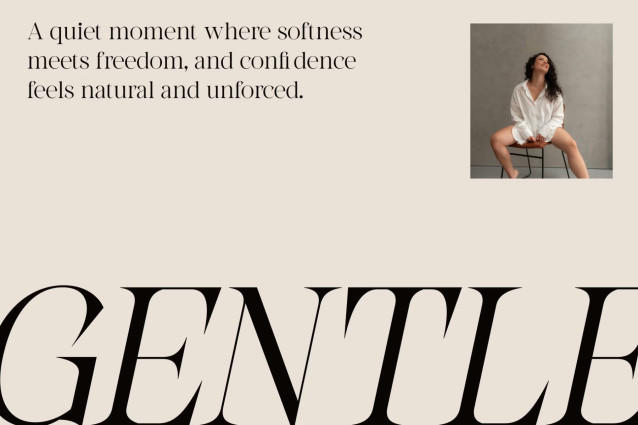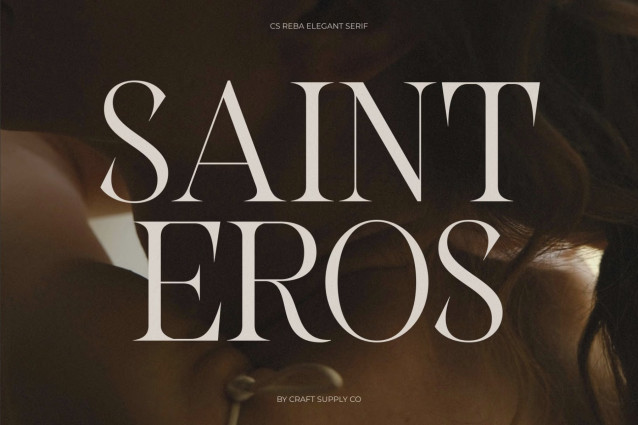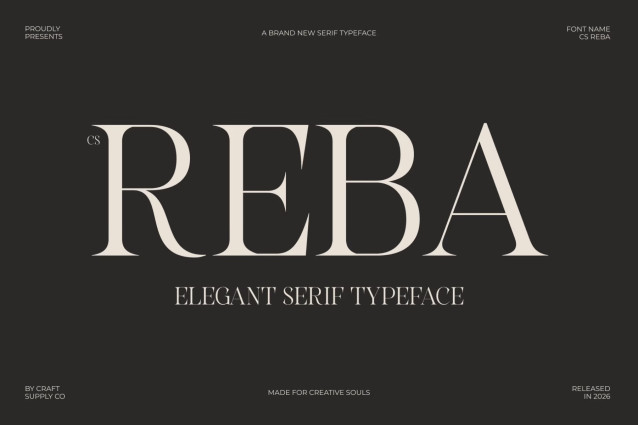
CS Reba – Elegant Serif Font: Where Refined Curves Meet Timeless Luxury
Refined Curves with Elongated Details
This is an elegant serif font that showcases beautifully refined curves and elongated details, creating a sophisticated and luxurious visual presence. Its balanced proportions and graceful letterforms exude timeless elegance, making every word appear polished, expressive, and effortlessly stylish. The delicate serif construction enhances its premium aesthetic while maintaining excellent readability.
Sophisticated Design with High-End Appeal
This font combines classic serif beauty with contemporary refinement. The elongated terminals and subtle curves create a harmonious rhythm that feels graceful and distinguished, giving the font a high-end look suitable for premium visual identities. Its elegant silhouette allows it to stand out without overwhelming the overall composition.